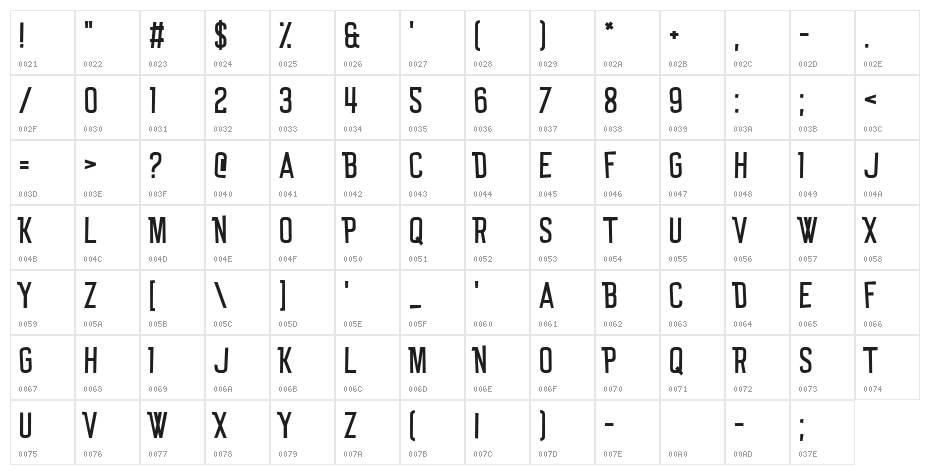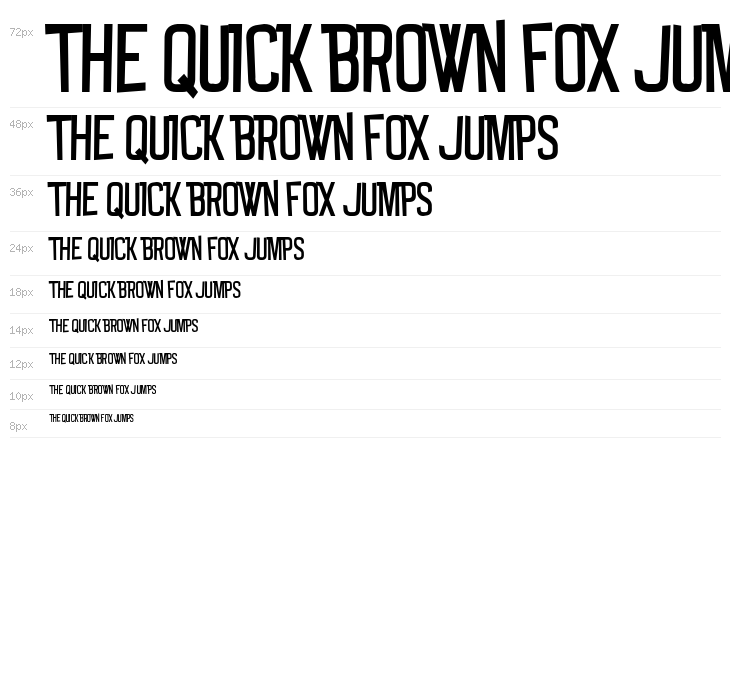
Tun Up De Ting Font
Tun Up De Ting Description
This font features a bold and condensed style with a modern and edgy appearance. The uppercase letters are tall and narrow, giving a strong vertical emphasis. The lowercase letters maintain the same condensed form, ensuring consistency across the typeface. The numerals are also designed to match the overall aesthetic, with a uniform height that aligns with the uppercase letters. Special characters are included, providing versatility for various design needs. The strokes are consistent in weight, contributing to a clean and cohesive look. This font is ideal for projects that require a strong visual impact and a contemporary feel.